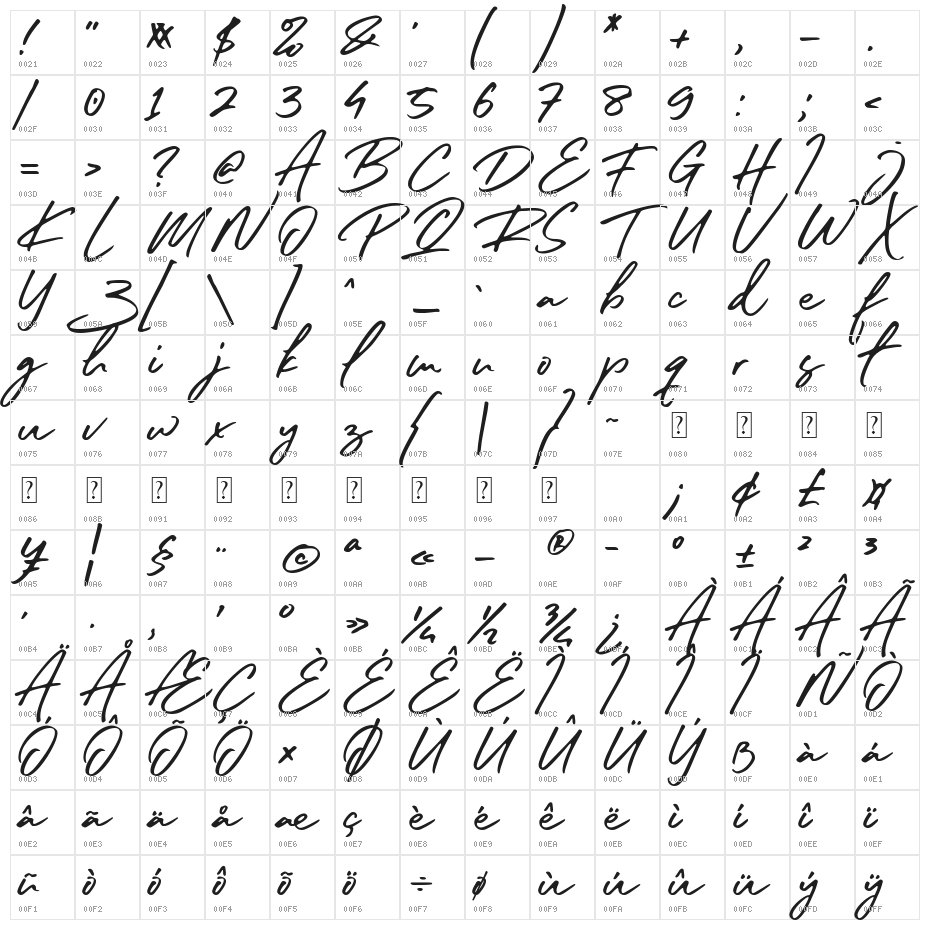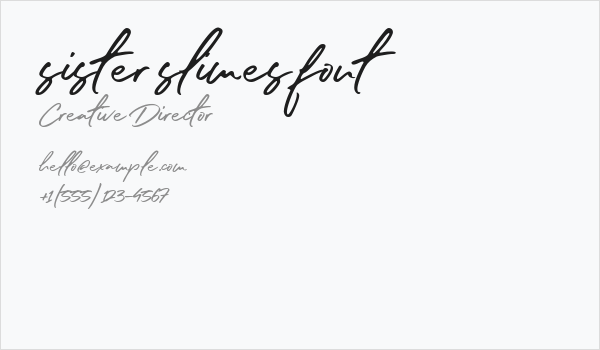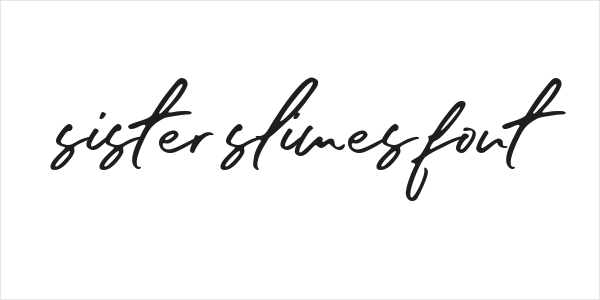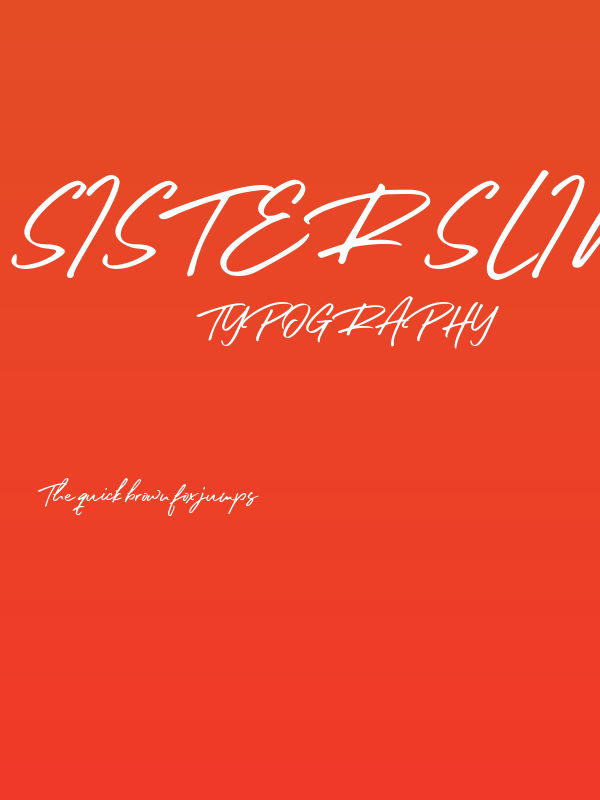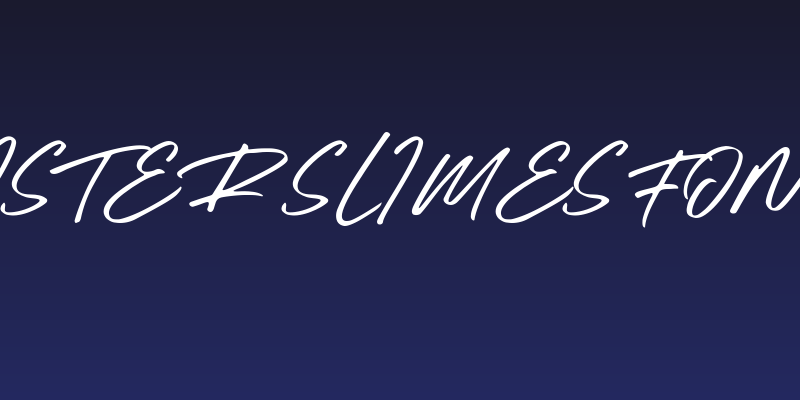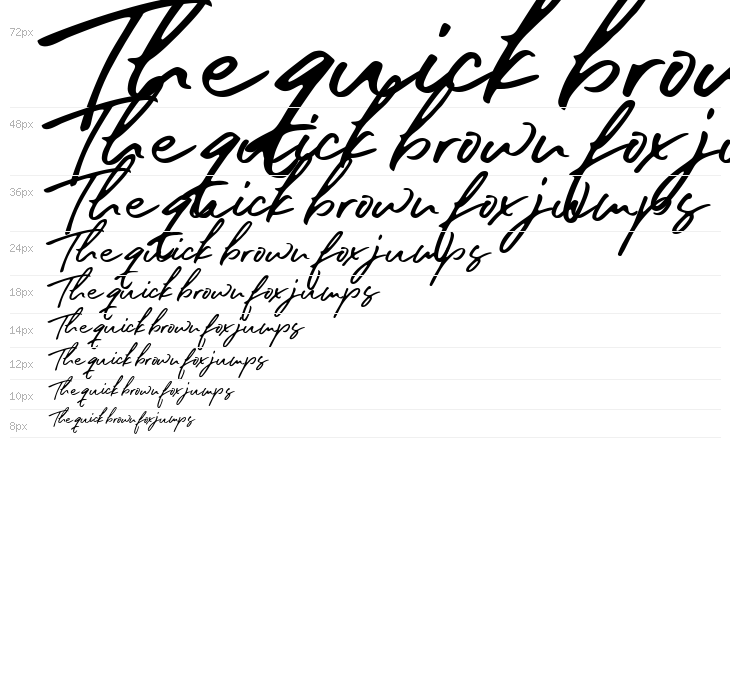
This font exudes a lively and dynamic energy with its fluid, cursive style. The characters are crafted with a natural, handwritten appearance, featuring smooth, flowing lines that give it a personal touch. The uppercase letters maintain a consistent height, while the lowercase letters vary slightly, adding to the organic feel. Numbers and special characters follow the same cursive style, ensuring a cohesive look across all text. The strokes are moderately thick, providing good readability while maintaining the font's elegant and artistic flair.
| Proposed Projects | Ideal for creative projects such as invitations, greeting cards, branding, and social media graphics where a personal touch is desired. |